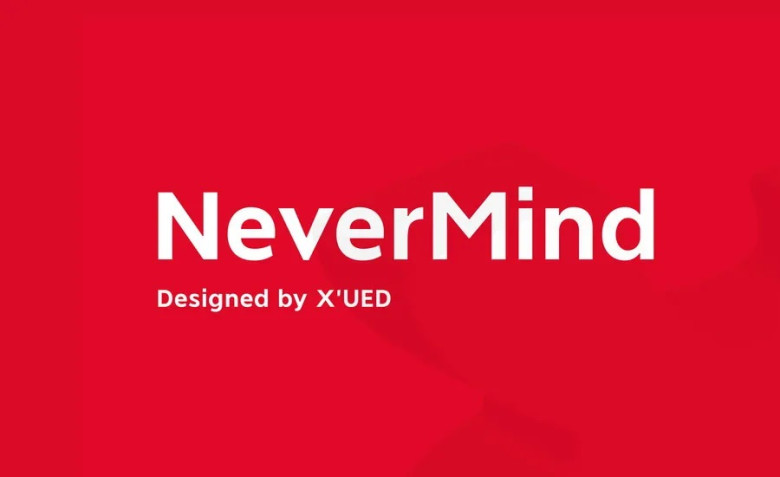
Nevermind Font
Nevermind is an innovative sans serif font family from XMind Ltd that blends an impactful look with contemporary edges. As an effective font it can be utilized across various communication mediums.
Nevermind is part of the Nevermind font family, which currently includes an all-purpose typeface as well as over ten fonts with unique styles such as round, handwritten and serif fonts.
Nevermind Sans Serif Font Family